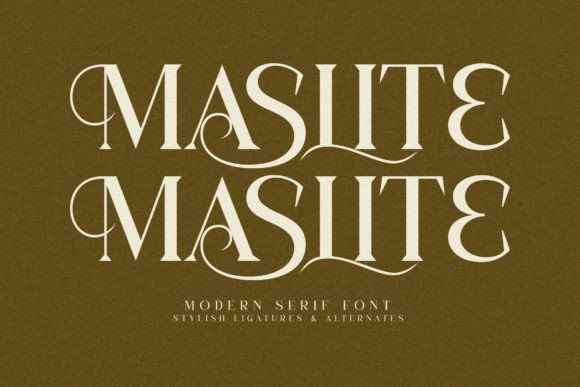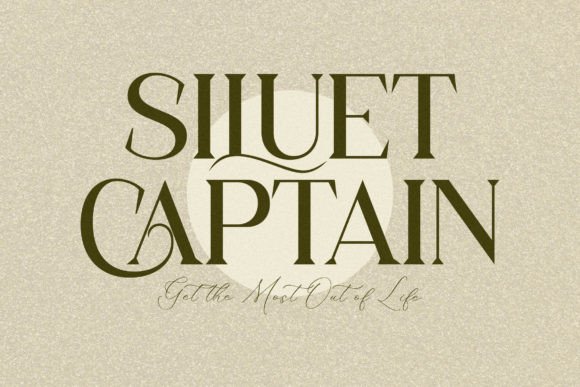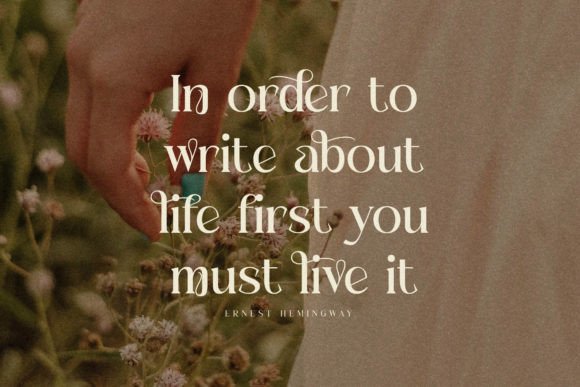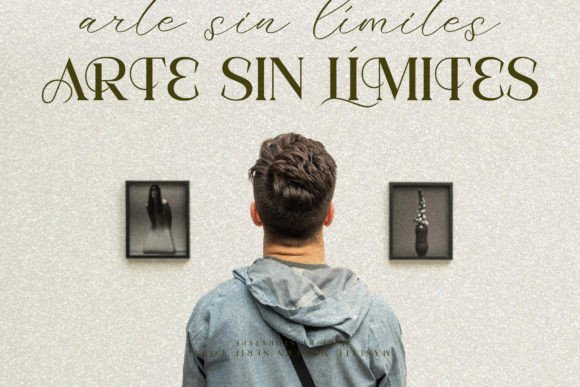
Maslite Font: Elegant Serif with Stylish Ligatures for Branding
About the Maslite Font
The Maslite Font offers a perfect balance of form and function for your design needs. Maslite is a stylish and elegant serif font. Contemporary and fresh, it is perfect for any design you wish to create. Add it to your creative projects and make them outstanding.
Maslite’s elegant serifs make it ideal for headlines, logos, and short-form text in branding projects or high-end packaging. Its contemporary feel lends itself well to sophisticated posters and invitations. However, its refined styling isn’t suited to body text or long paragraphs, nor does it translate well into user interfaces requiring high readability.
Pairing Maslite effectively requires considering its inherent elegance. A clean sans-serif like Open Sans or Lato provides a strong, neutral counterpoint for readability in supporting text. For a more playful feel, a rounded geometric sans-serif such as Futura or Gill Sans could be used. A simple script font can add a touch of luxury for special applications.
Maslite projects a sophisticated and modern personality, conveying a sense of understated luxury and refined taste. It is best suited for brands aiming for a premium image and high-quality aesthetic.
Maslite Font Usage Examples
Maslite Font Example